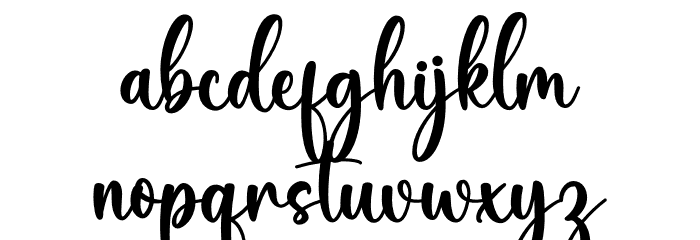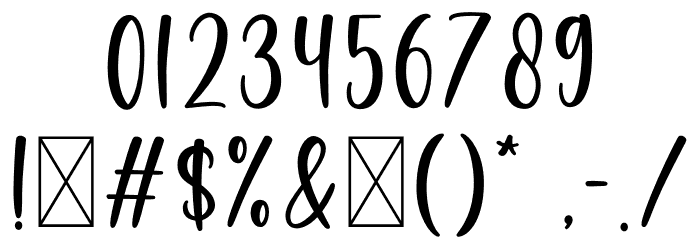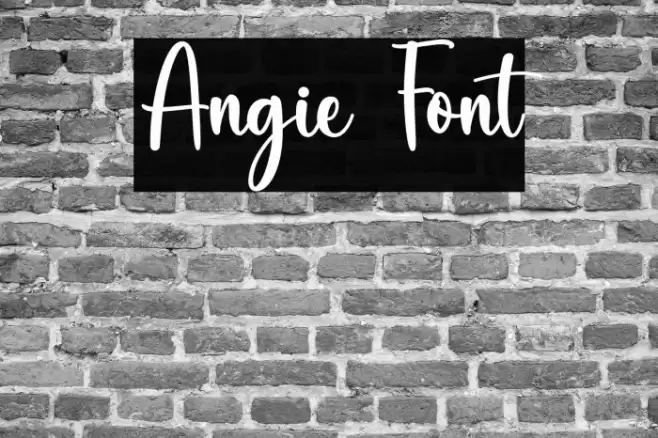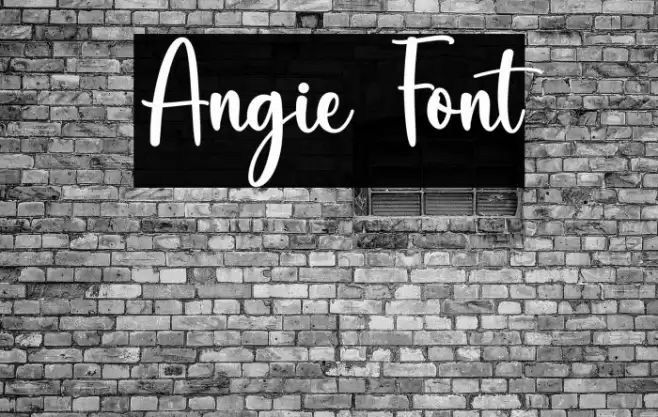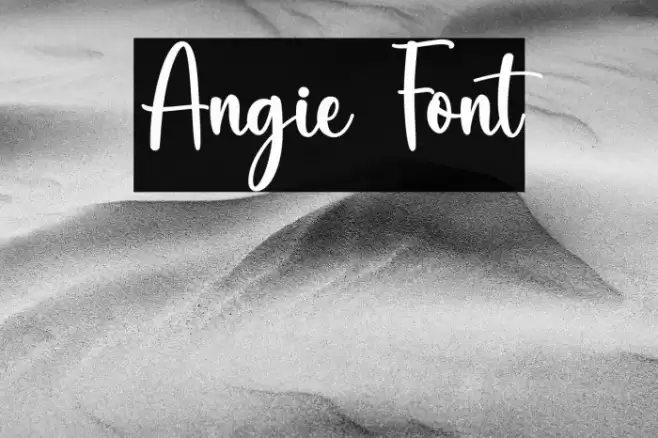
Angie Font
This font features a playful and whimsical handwritten style, characterized by its flowing, cursive-like strokes and varying line thickness. The uppercase letters are tall and slightly narrow, with a casual flair that adds a sense of movement and energy. The lowercase letters maintain a consistent style, with rounded forms and smooth connections between characters, enhancing the handwritten aesthetic. The numerals are bold and clear, ensuring readability while maintaining the overall playful theme. Special characters are creatively designed, fitting seamlessly with the rest of the font's style. This font exudes a friendly and approachable vibe, making it suitable for a variety of creative projects.
A playful, handwritten font with flowing, cursive-like strokes and varying line thickness.
- Font: Angie
- Proposed Projects: Ideal for greeting cards, invitations, personal branding, and creative social media graphics.
- Overall Style: Playful, Whimsical
- Use Case: Headlines, Logos, Creative projects